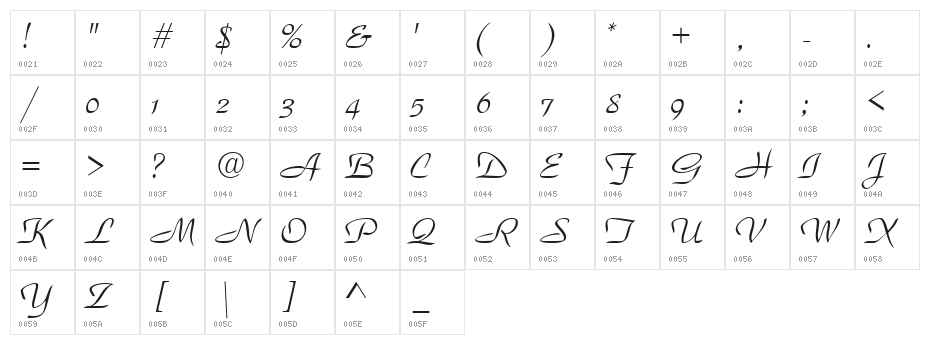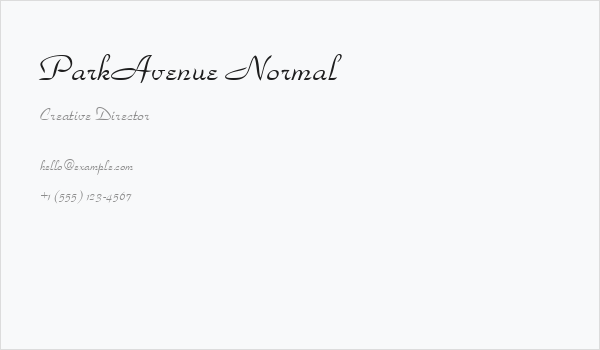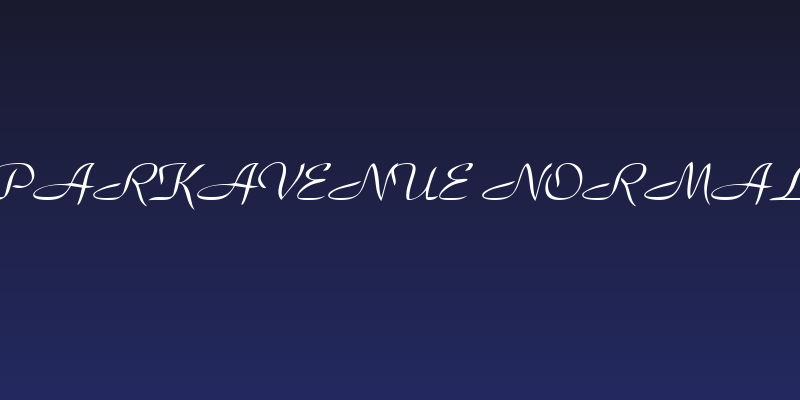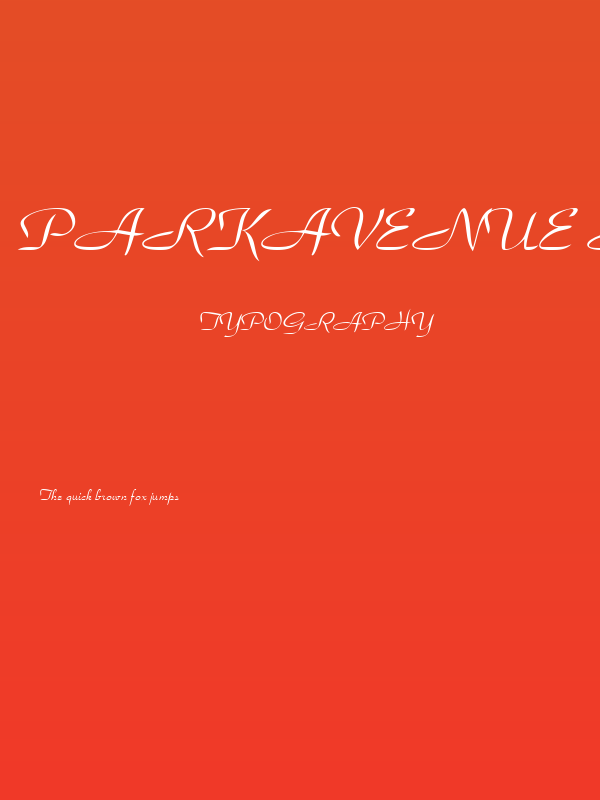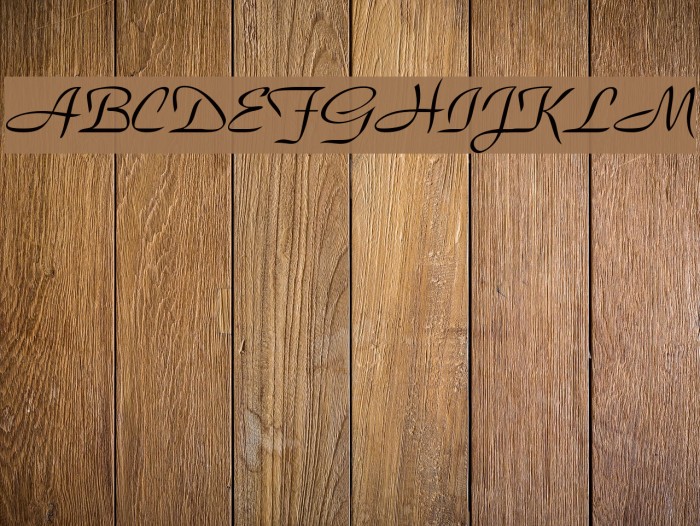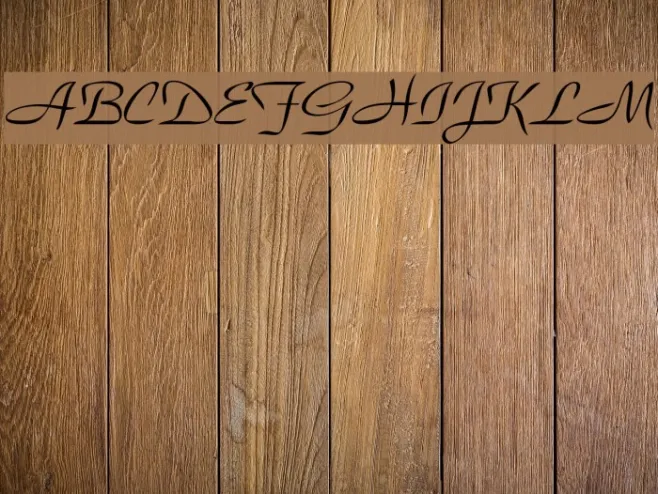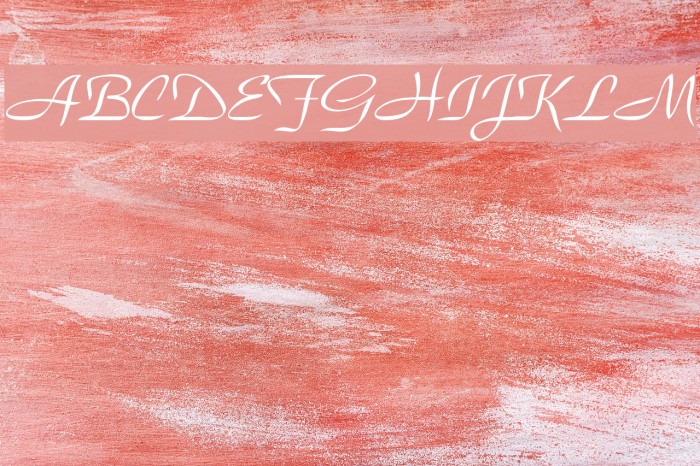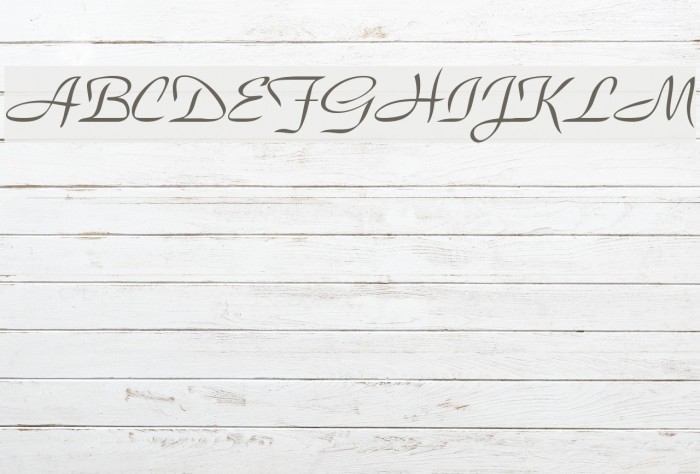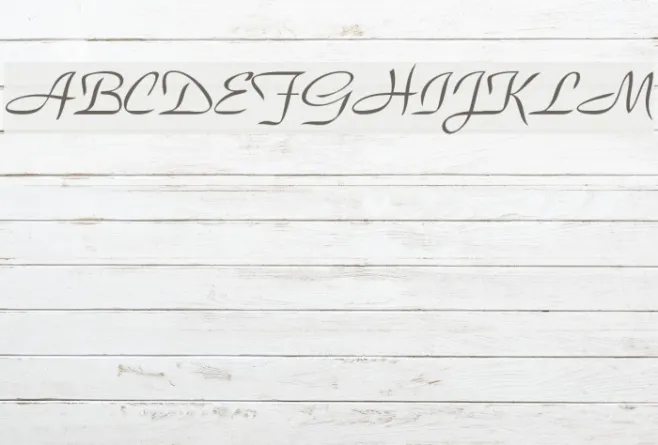
ParkAvenue Normal Font
ParkAvenue Normal Description
This elegant script font features a flowing, cursive style that exudes sophistication and grace. The characters are connected with smooth, sweeping strokes, giving it a handwritten appearance. The uppercase letters are particularly ornate, with flourishes that add a touch of luxury and refinement. The lowercase letters maintain a consistent style, ensuring readability while still offering a decorative flair. The numerals and special characters are designed to match the overall aesthetic, making this font versatile for various applications. Its classic yet stylish look makes it suitable for formal invitations, branding, and other projects that require a touch of elegance.
| Use Case | Headlines, Invitations, Branding |
| Proposed Projects | Ideal for wedding invitations, luxury branding, greeting cards, and elegant signage. |